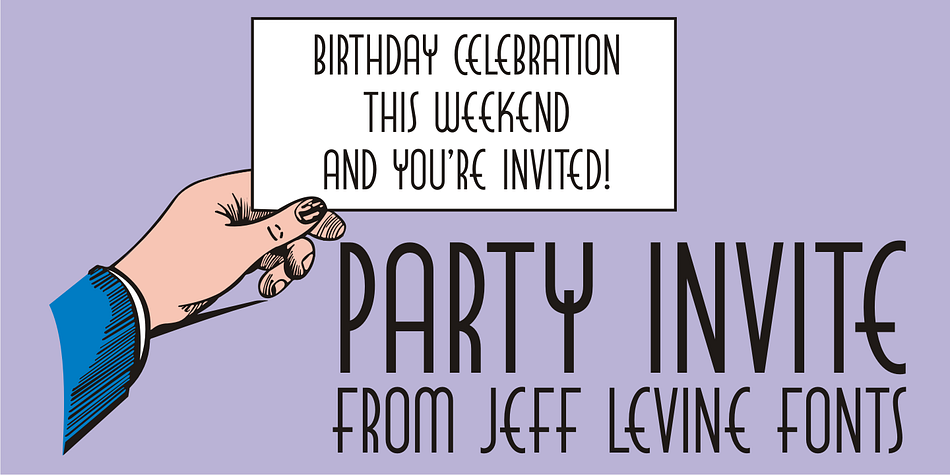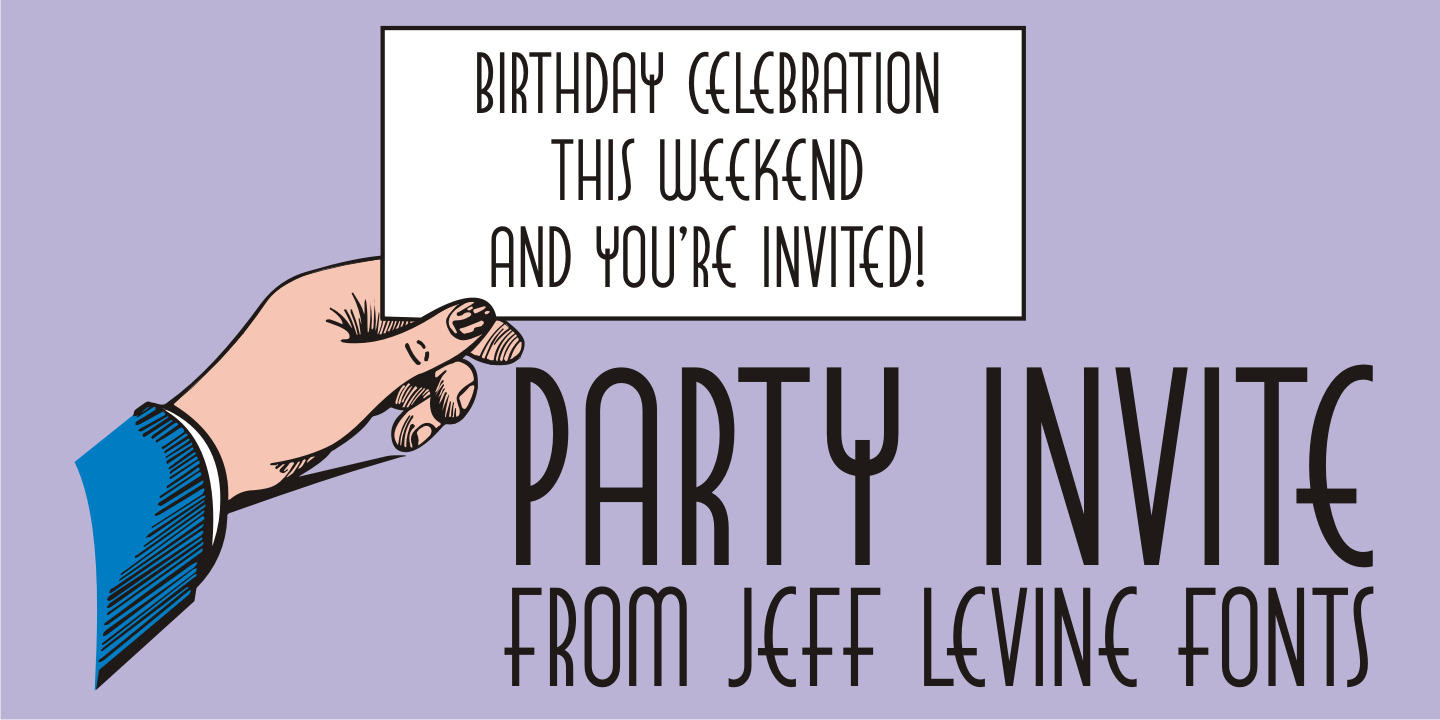
Party Invite JNL is a art deco font published by Jeff Levine Fonts.
Party Invite JNL is a thin, condensed Art Deco sans based on lettering from a letterpress holiday stock cut (the predecessor to clip art) from the 1940s.